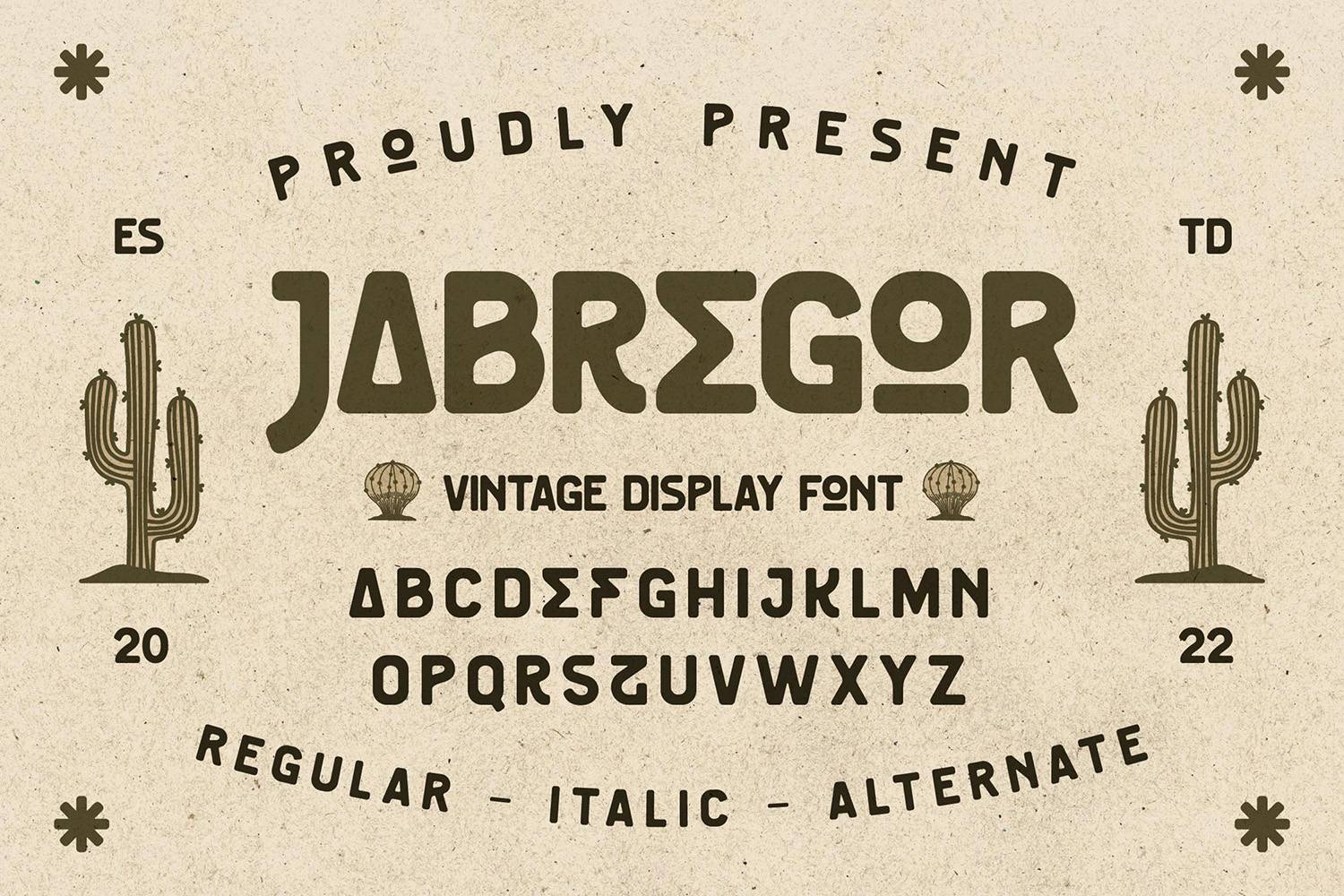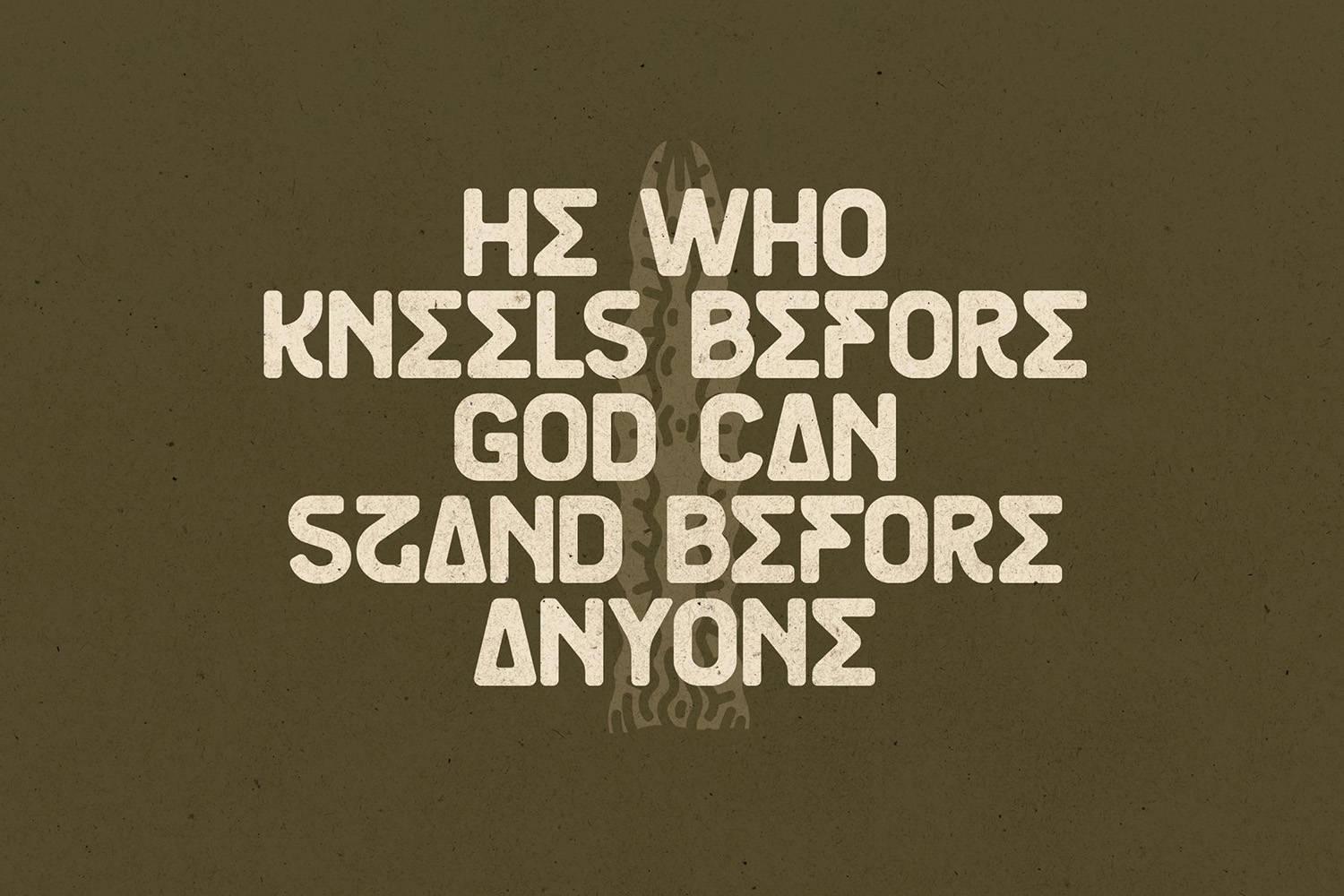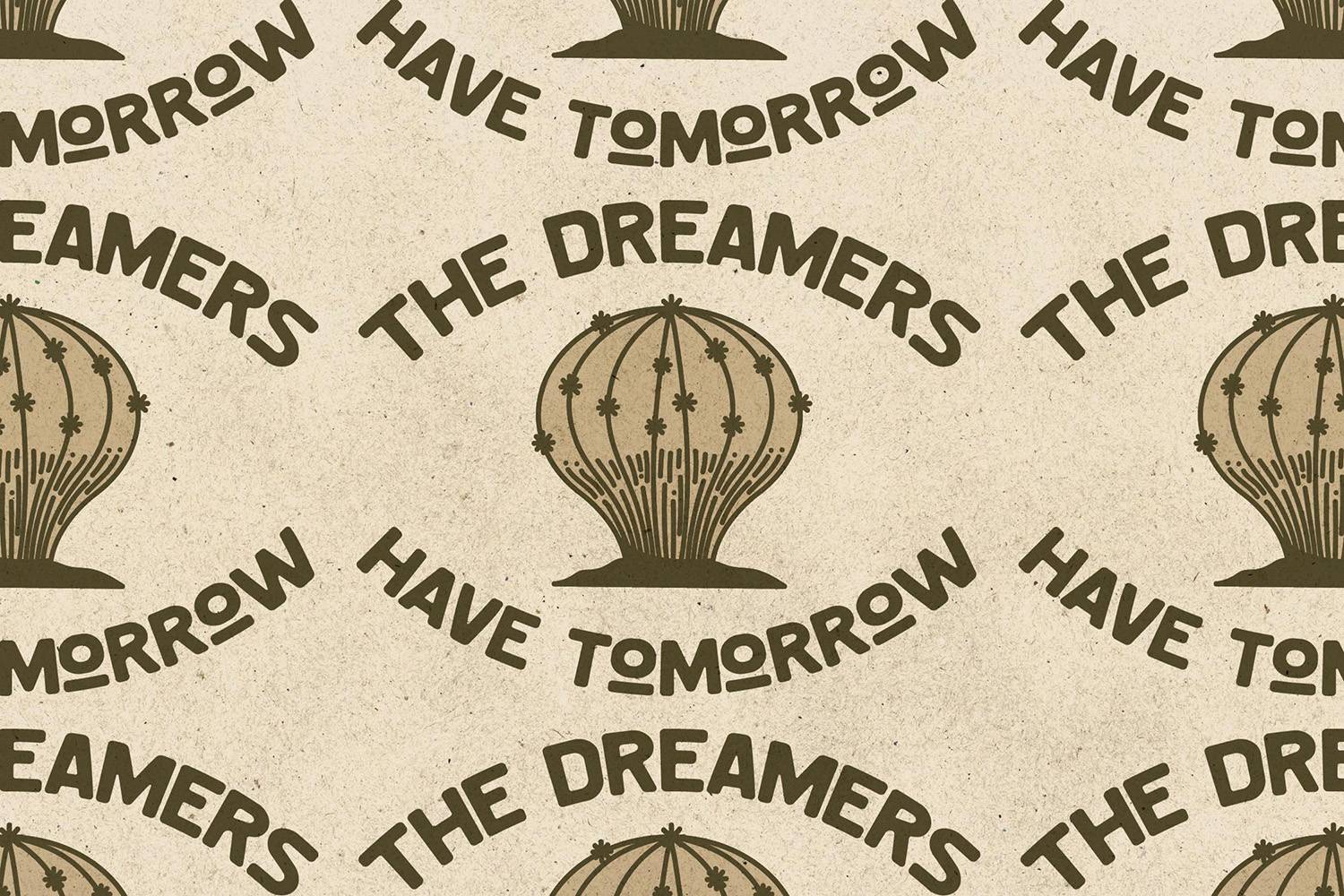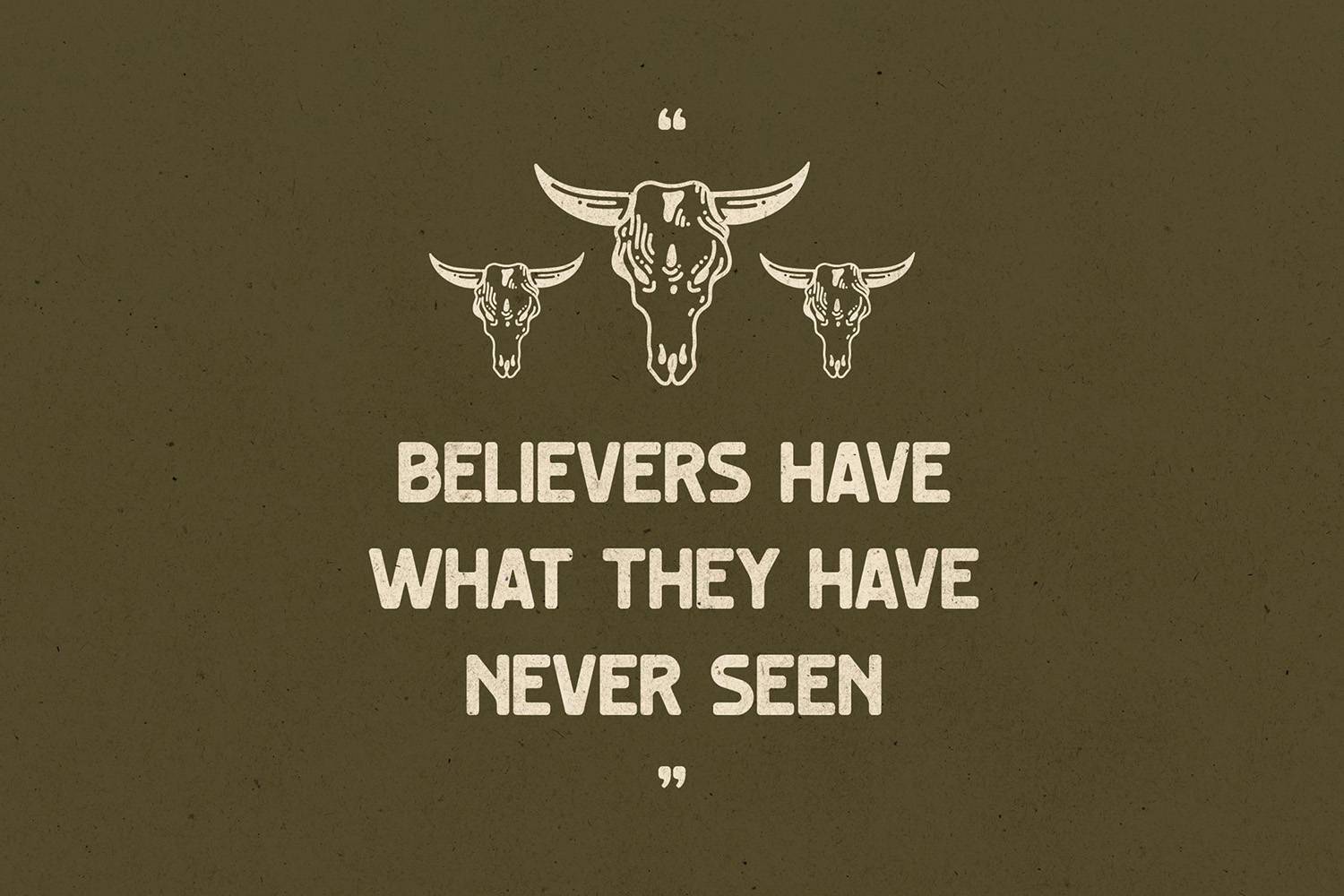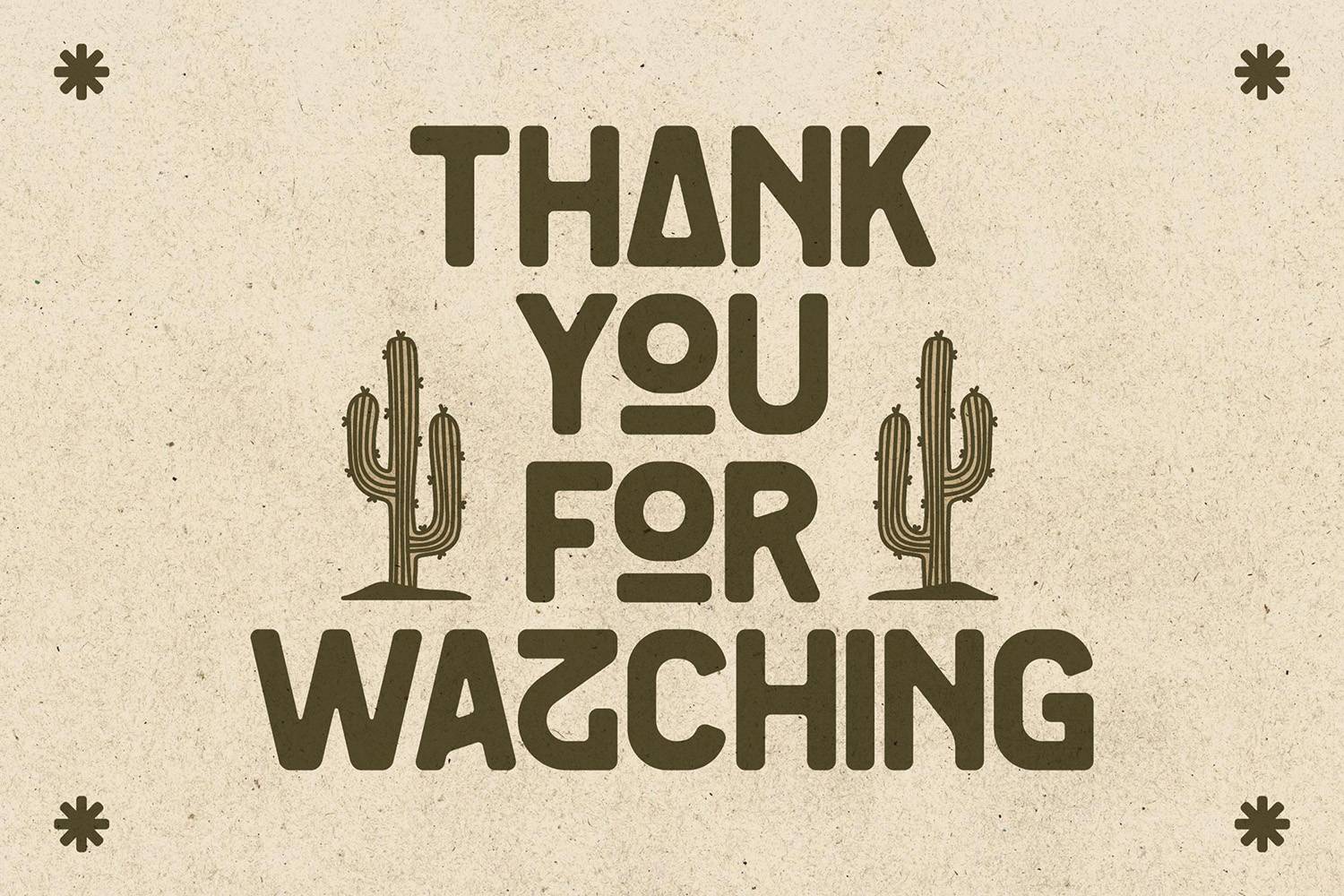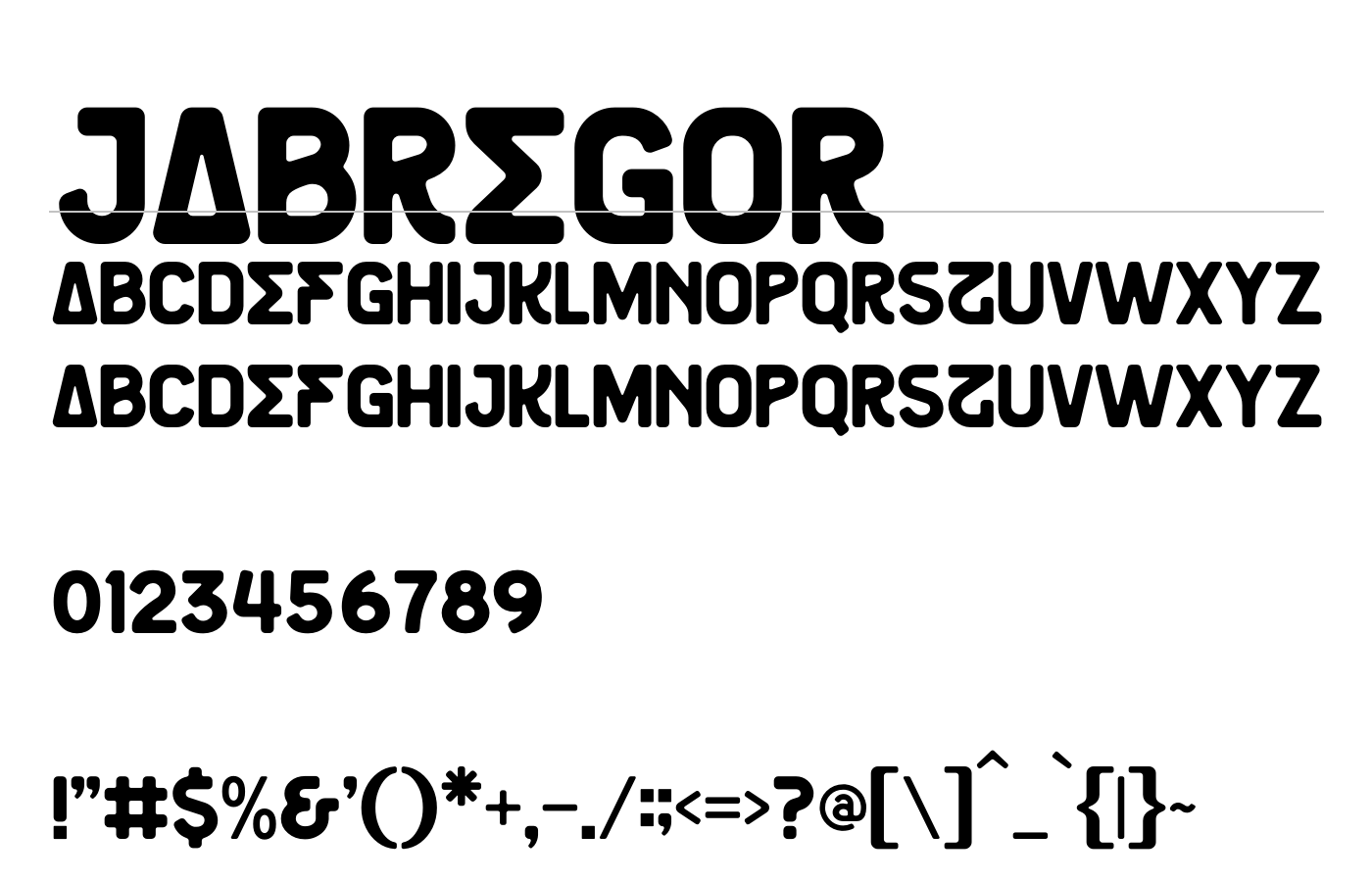
Jabregor is a bold, geometric sans serif font with a playful, modern vibe highlighted by its rounded corners and unique letterforms that resemble stylized symbols. Its strong weight and compact width make it ideal for headlines, logos, and branding projects seeking a futuristic or tech-inspired feel. This font works best where attention-grabbing and memorable typography is needed, such as in posters or digital displays.
Jabregor Font
About Jabregor Font